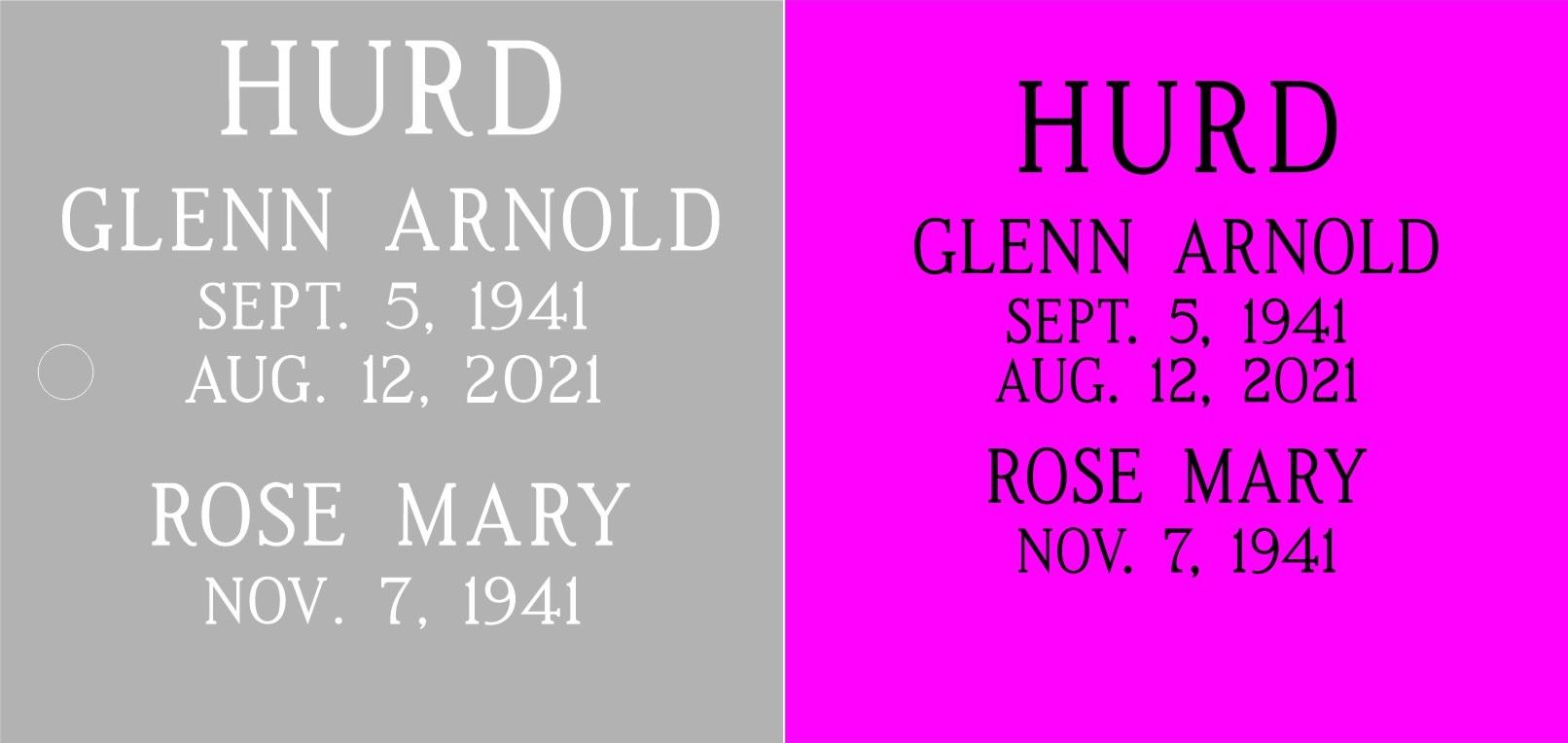
I am a typographer and am working with a monument company, assisting with a marker for my father-in-law. I’d like to improve the look by addressing scale, margins and kerning generally.
The current issue is that my cut of Modified Roman in use for mock up is, for example, too light on the unstressed ascender of a cap U, etc. at 72 pt—the small size for the dates. I’m certain this version is designed for larger letters, as a display version of a face might be. I’d like to purchase a digital version, and I see that several for sale here have a beefed up cut for reproduction @ .75″ to 1″, etc.
The monument company is using Monument Modified Roman AK Rev E, but also requesting that the lightest stroke be .08″ where the cut I am using measures approx .04″.
I have attached an image showing the suggested solution in grey vs the template I’m working from—right in magenta.